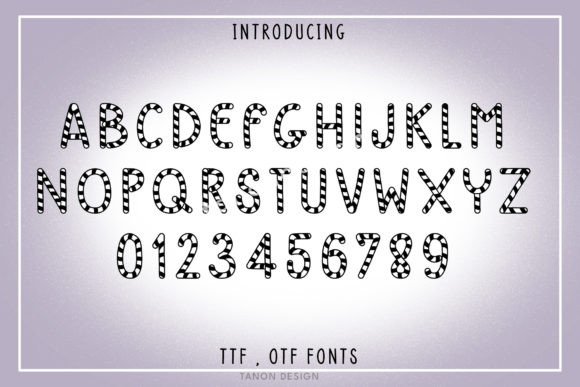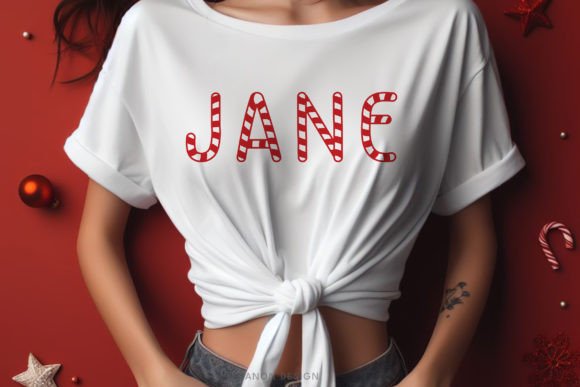
The Sweetest Holiday Font: A Comprehensive Guide to Candy Cane
Ah, the holiday season is upon us, and you know what that means – a flurry of design projects, festive decorations, and a dash of creative chaos! I still remember the year I was tasked with designing a Christmas card for a client’s family reunion. I spent hours scrolling through font libraries, searching for the perfect holiday-themed font. That’s when I stumbled upon Candy Cane, a fun and festive display font that instantly captured the spirit of the season.
An Honest Review of Candy Cane Font
Candy Cane is a delightful addition to any designer’s toolkit, especially during the holiday season. Here’s what I love about it:
- ✨ Festive and fun: Candy Cane is the perfect font for adding a touch of holiday cheer to your designs.
- ✅ Highly versatile: This font works beautifully on various design platforms, from t-shirt designs to digital art.
- 🎉 Easy to read: Despite its playful nature, Candy Cane remains clear and legible, even at smaller font sizes.
Of course, no font is perfect, and Candy Cane has a few minor quirks:
- 🤔 Limited use outside of holidays: Let’s face it, Candy Cane is a seasonal font, and its use might be limited to holiday-themed designs.
- ⚠️ Not suitable for body text: Due to its decorative nature, Candy Cane is best used as a display font, not for lengthy paragraphs.
The Designer Inspiration Behind Candy Cane
Candy Cane font was inspired by the classic holiday treats of childhood – candy canes, gingerbread men, and festive holly. The designer’s goal was to create a font that captured the whimsy and playfulness of the holiday season, while remaining versatile and easy to use.
| What type of designs is Candy Cane font best suited for? | Candy Cane font is perfect for holiday-themed designs, such as Christmas cards, t-shirt designs, mug designs, and digital art. |